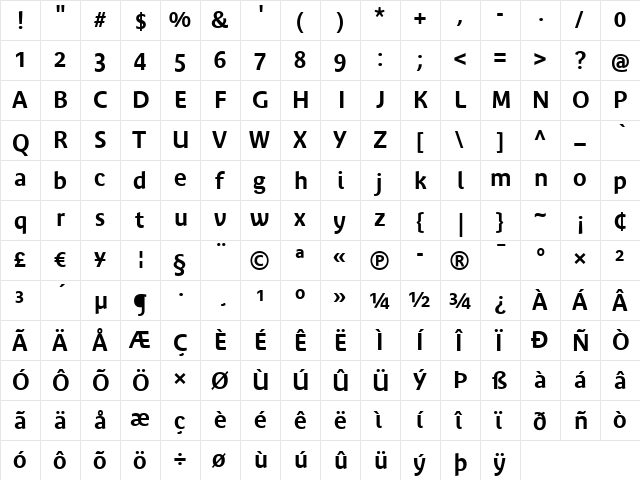
BienvenueBeta SemiBold
| Foundry | designed by Jean-Francois Porchez, Porchez Typofonderie for France Telecom |
Design Context for BienvenueBeta Typeface
BienvenueBeta is a composed and adaptable typeface that performs quietly and consistently across a wide range of design contexts. The heavy weight commands attention and anchors typographic hierarchies.